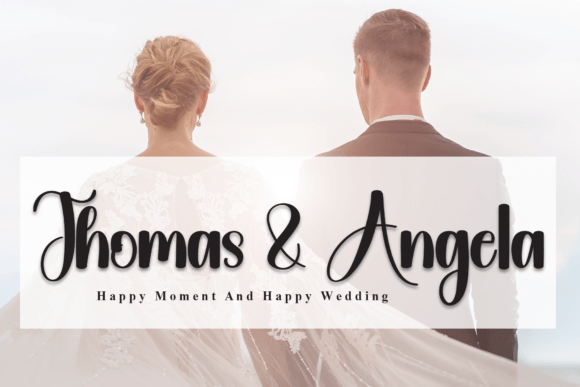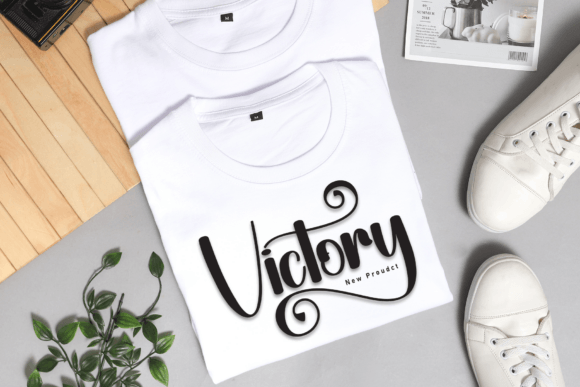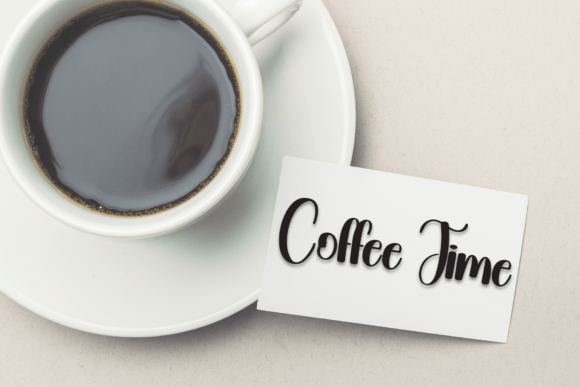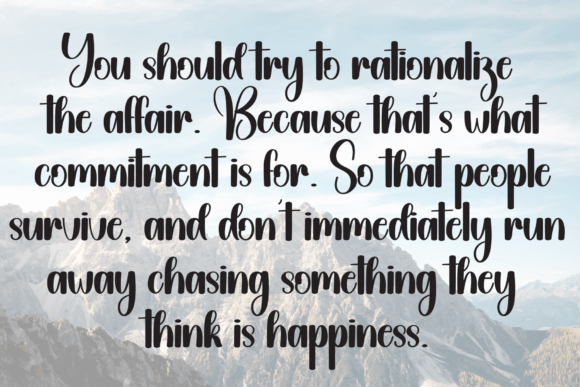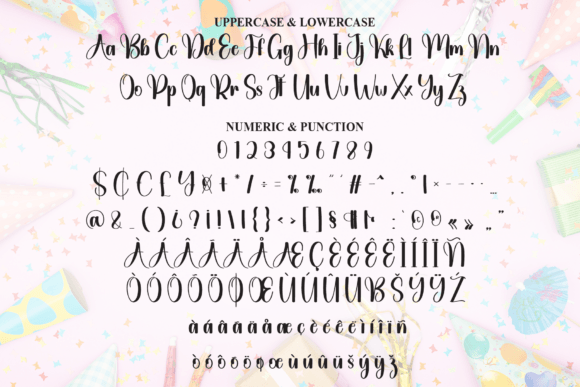
Introducing Birthday Font: The Perfect Addition to Your Celebrations
Are you looking for a font that can add a personal touch to your birthday cards, invitations, and decorations? Look no further than Birthday Font, a bold handwritten font that exudes fun and liveliness. With its thick letters and friendly feel, this font is perfect for making your celebrations stand out.
What is Birthday Font?
Birthday Font is a unique and playful font that is designed to bring a festive touch to any celebration. Its bold and handwritten style makes it perfect for creating eye-catching birthday cards, invitations, and decorations. The font’s thick letters give it a personal and friendly feel, making it ideal for crafters and designers who want to add a special touch to their projects.
- Bold and Handwritten Style: Birthday Font has a bold and handwritten style that makes it perfect for creating fun and lively celebrations.
- Thick Letters: The font’s thick letters give it a personal and friendly feel, making it ideal for birthday cards, invitations, and decorations.
- Playful and Festive: The playful style of Birthday Font adds a festive touch to any celebration, making it perfect for birthdays, parties, and other special occasions.
Uses of Birthday Font
Birthday Font is a versatile font that can be used for a variety of purposes, including:
- Birthday Cards: Create personalized birthday cards with Birthday Font and make the occasion even more special.
- Invitations: Use Birthday Font to create eye-catching invitations that will set the tone for a fun and lively celebration.
- Decorations: Add a festive touch to your party decorations with Birthday Font, perfect for banners, signs, and other decorative elements.
- Crafting Projects: Use Birthday Font to add a personal touch to your crafting projects, such as scrapbooking, DIY gifts, and other handmade items.
Why Choose Birthday Font?
There are many reasons why Birthday Font is the perfect choice for your celebrations, including:
- Unique and Playful Style: Birthday Font has a unique and playful style that will make your celebrations stand out.
- Easy to Read: The font’s bold and thick letters make it easy to read, even from a distance.
- Versatile: Birthday Font can be used for a variety of purposes, from birthday cards to party decorations.
- Personal Touch: The font’s handwritten style gives it a personal touch, making it perfect for special occasions.
Tips for Using Birthday Font
Here are some tips for using Birthday Font to make the most of your celebrations:
- Pair with Other Fonts: Pair Birthday Font with other fonts to create a unique and eye-catching design.
- Use Bright Colors: Use bright and bold colors to match the playful style of Birthday Font.
- Experiment with Sizes: Experiment with different sizes to create a visually appealing design.
- Add Graphics: Add graphics and images to enhance the design and make it more festive.
Birthday Font is a bold and playful font that is perfect for adding a personal touch to your celebrations. With its thick letters and friendly feel, it’s ideal for birthday cards, invitations, decorations, and other special occasions. Whether you’re a designer or crafter, Birthday Font is a great addition to your toolkit. So why not give it a try and make your celebrations stand out with this unique and festive font?